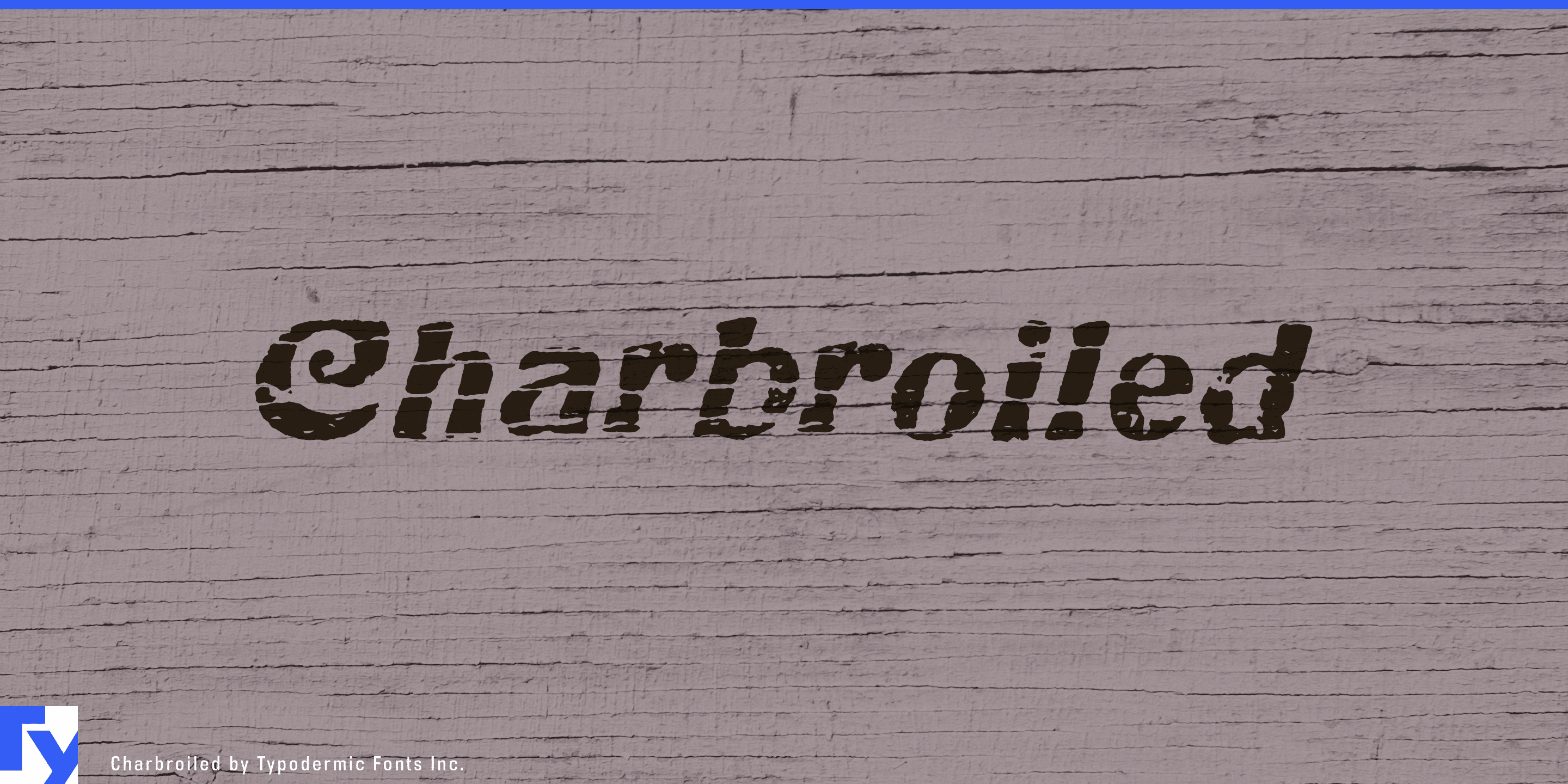
Charbroiled is a grunge font published by Typodermic Fonts Inc.
Charbroiled is a charred, antiqued font based on American Italic from 1902. In OpenType savvy applications, letter pair autoligs help break up the monotony of obviously repeating letters.